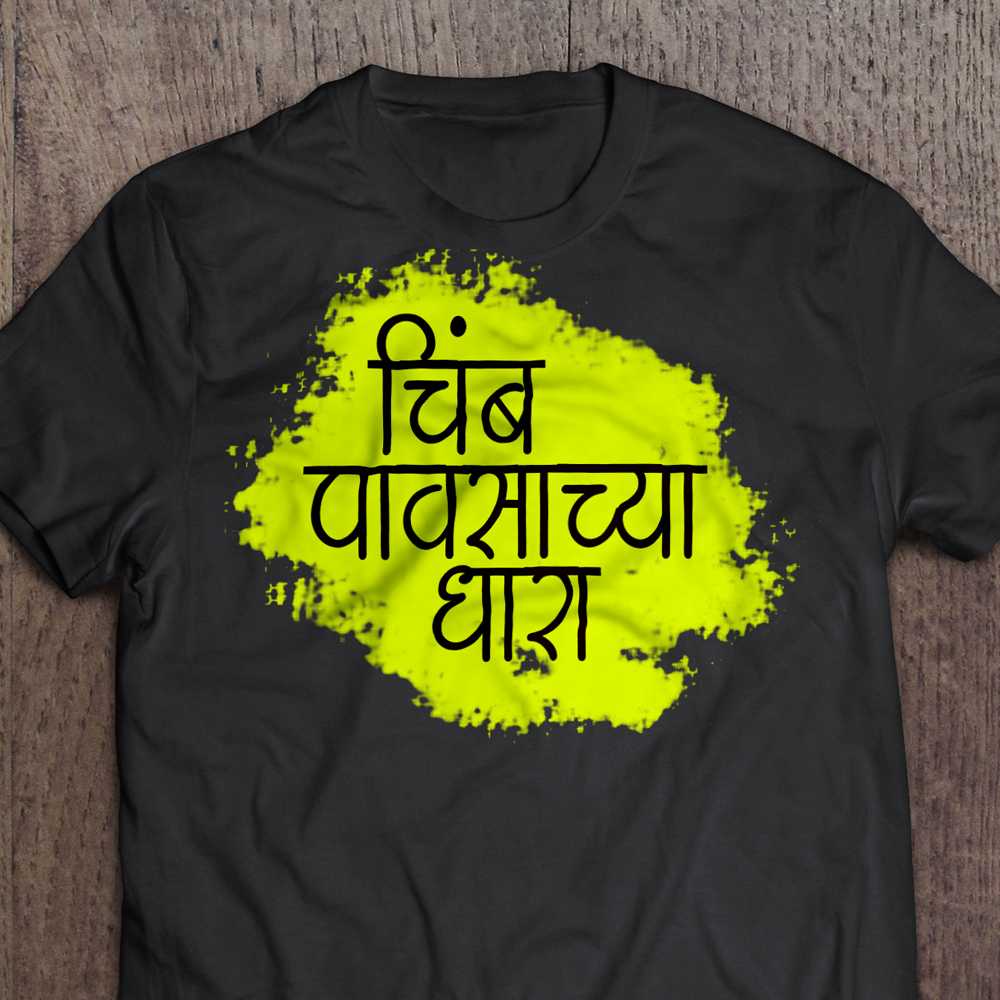
AMS Harshdeep
Illuminate your designs with AMS Harshdeep, a captivating font that brings a touch of elegance and uniqueness. Whether you're searching for free AMS fonts, specifically looking for AMS Harshdeep font download options, or exploring AMS Hindi font download choices, AMS Harshdeep is sure to impress.
About AMS Harshdeep Font
Illuminate your designs with AMS Harshdeep, a captivating font that brings a touch of elegance and uniqueness. Whether you're searching for free AMS fonts, specifically looking for AMS Harshdeep font download options, or exploring AMS Hindi font download choices, AMS Harshdeep is sure to impress. This publication font combines elegance with functionality, making it perfect for various design applications.
AMS Harshdeep is a professionally crafted publication typeface that brings clarity and style to your projects. Designed with attention to detail, it supports hindi and marathi characters flawlessly.
Whether you're working on invitations, posters, books-publications, or other creative projects, AMS Harshdeep delivers consistent performance across both digital and print media. This carefully designed typeface ensures readability and visual appeal in all your design work.
About AMS Harshdeep Typography Style
AMS Harshdeep is a professionally crafted publication font that exemplifies modern Hindi typography design. This free font is perfect for designers seeking impactful poster and display applications.
Available in 1 weight and supporting hindi, marathi scripts, AMS Harshdeep offers exceptional versatility for both digital and print media. Whether you're working on invitations, posters, books-publications, this carefully designed typeface ensures consistent quality and professional results across all your typography projects.